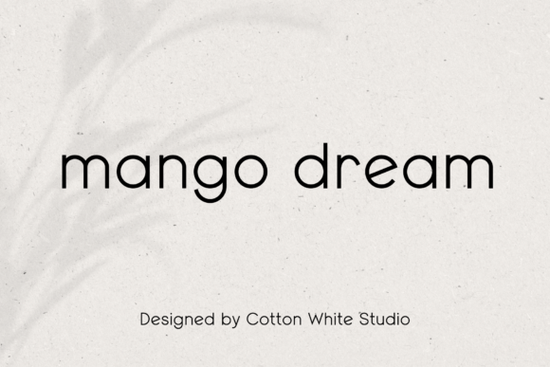
If you've been searching for a clean, modern sans-serif font that works across different types of projects, the Mango Dream font is worth a closer look. It has a rounded, minimalistic shape that looks polished without feeling cold or overly corporate. Whether you design for clients, sell products on print-on-demand platforms, or create content for your own brand, this font fits right in.
What makes Mango Dream different from other sans-serif fonts?
There's no shortage of sans-serif fonts out there. So what sets this one apart?
Mango Dream has a soft, rounded geometry that gives it warmth while keeping things modern. It doesn't try too hard to be trendy it just looks clean and balanced. That kind of simplicity is surprisingly hard to find. Many modern sans-serifs either feel too generic or too stylized. This one lands in a comfortable middle ground.
It also comes with multilingual support, which means you can use it for projects that target audiences beyond English-speaking markets. If you sell internationally or work with clients in different regions, that's a practical feature you'll actually use.
Who is this font a good fit for?
Mango Dream works well for a wide range of creatives:
- Graphic designers working on branding, packaging, or editorial layouts
- Print-on-demand sellers who need legible, attractive text for t-shirts, mugs, and posters
- Small business owners creating their own logos, business cards, or social media graphics
- Web designers looking for a typeface that reads well on screens at different sizes
- Crafters and hobbyists who want a polished look for DIY projects, invitations, or scrapbooking
If you've ever struggled to find a font that looks professional but still feels approachable, this one is worth trying.
What kinds of projects does it work best for?
Because of its minimalistic design, Mango Dream adapts to many different contexts. Here are some specific ways people use fonts like this one:
- Website headings and body text – clean fonts improve readability and keep visitors on your page longer
- Logo design – a rounded sans-serif gives brands a friendly, trustworthy feel
- Social media graphics – bold, simple text stands out in busy feeds
- Marketing materials – flyers, brochures, and email headers all benefit from a consistent, professional typeface
- Print-on-demand products – legibility matters when text is printed on physical items like apparel and accessories
If you're already using a font like Bright Darling Duo for your projects, Mango Dream makes a great companion. You could pair them together one for headings, one for body text to create visual contrast while keeping a cohesive look.
Does it come with everything you need?
Mango Dream is a complete font package. It includes multilingual characters, so you're not limited to basic Latin letters. This is especially useful if you're designing for a global audience or working on multilingual branding.
How does it compare to similar fonts?
Compared to other rounded sans-serifs, Mango Dream holds its own. It's not overly playful it maintains a level of professionalism that works in business contexts. At the same time, it's not stiff or formal. That balance makes it versatile enough for both creative and corporate work.
Fonts with this kind of clean, rounded style tend to pair well with serif typefaces for contrast. Try combining it with a classic serif for headings or pull quotes to create visual hierarchy in your layouts.
Is it worth adding to your font collection?
If you regularly work on design projects and find yourself reaching for the same few fonts, having a reliable modern sans-serif like Mango Dream in your toolkit saves time. You won't have to hunt for the "right" clean font every time a new project comes up.
It's especially useful if you work across different mediums print, web, and merchandise because its simplicity makes it adaptable. A font that works on a business card and a website header without looking out of place is genuinely helpful.